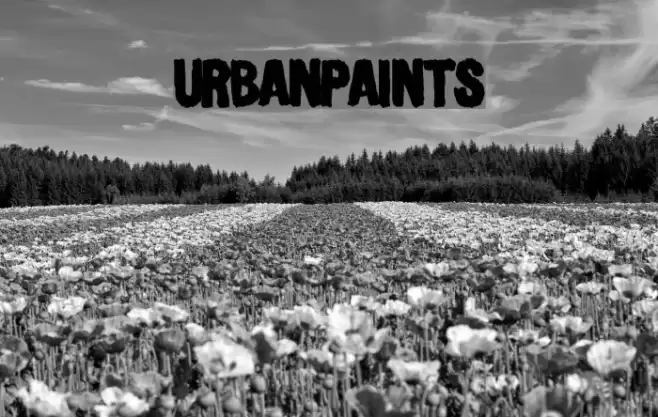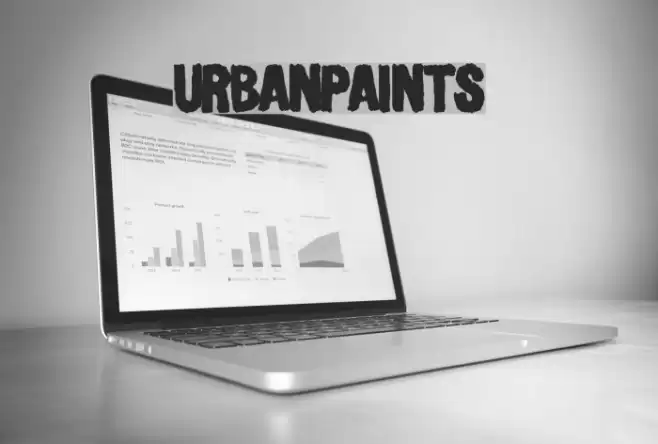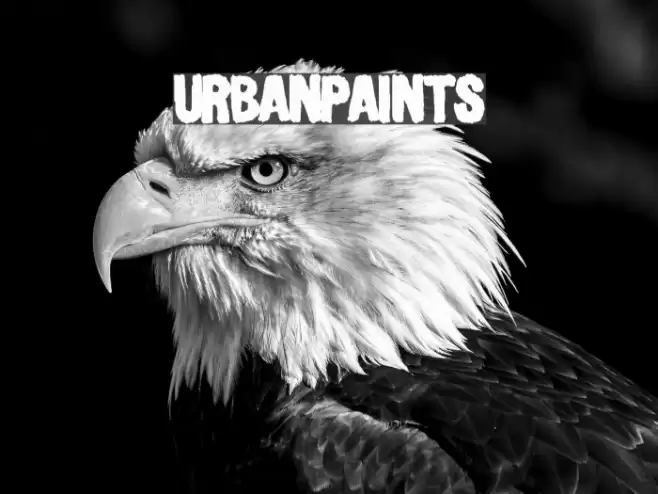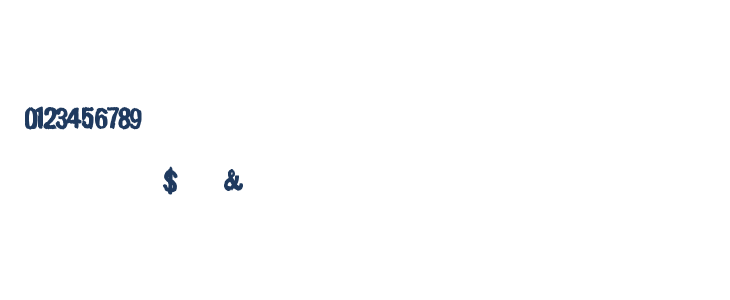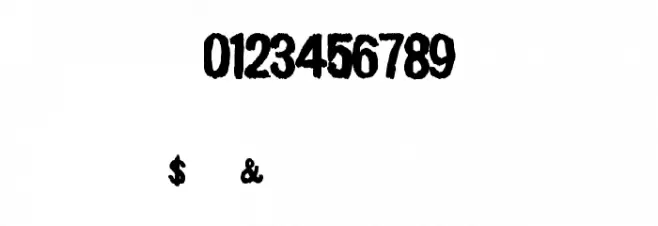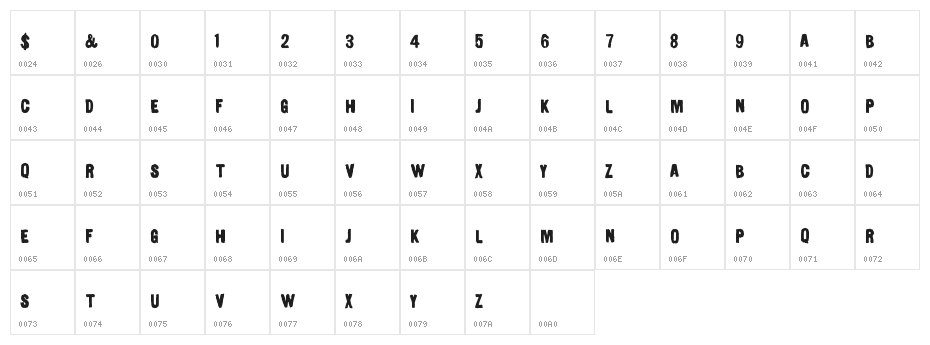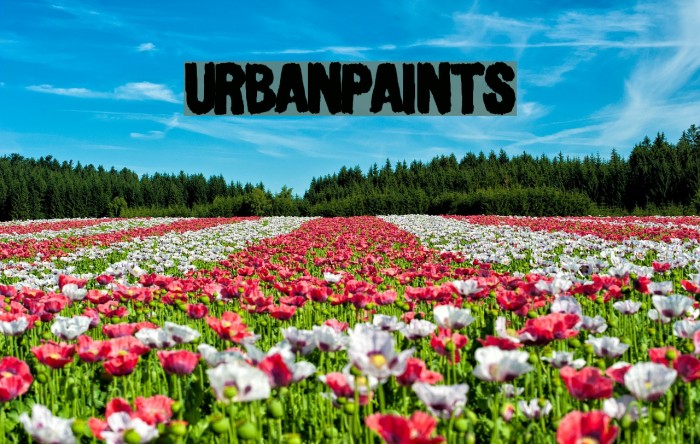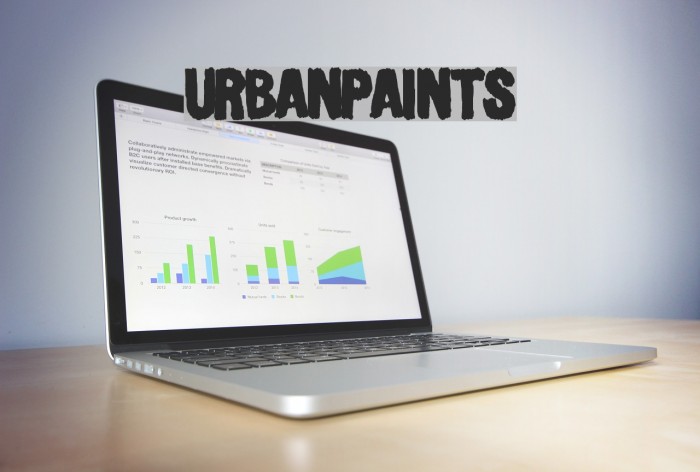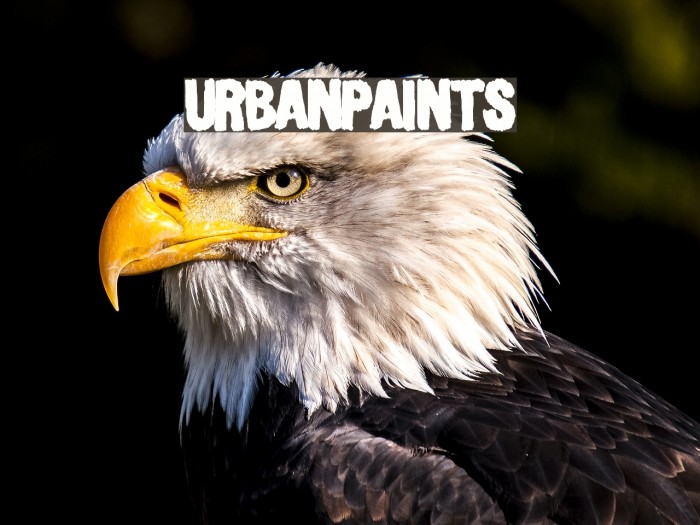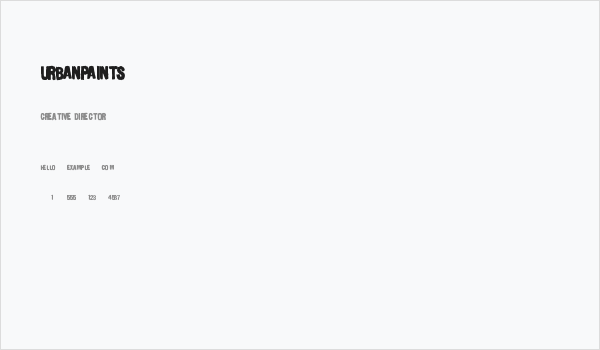
UrbanPaints Font
UrbanPaints Description
This font features a bold and rugged style, reminiscent of urban graffiti and street art. The letters are thick and have a distressed, painted appearance, giving them a raw and edgy feel. The uppercase and lowercase characters maintain a consistent weight, with slightly irregular edges that add to the hand-painted effect. The numbers and special characters follow the same aesthetic, ensuring a cohesive look across all elements. This font is ideal for projects that require a bold statement or an urban, artistic vibe.
A bold, graffiti-inspired font with a distressed, painted look from Distorted Eroded fonts.
- Proposed Projects: Perfect for street art designs, urban-themed posters, music album covers, and edgy branding projects.
- Overall Style: Urban, Artistic, Edgy